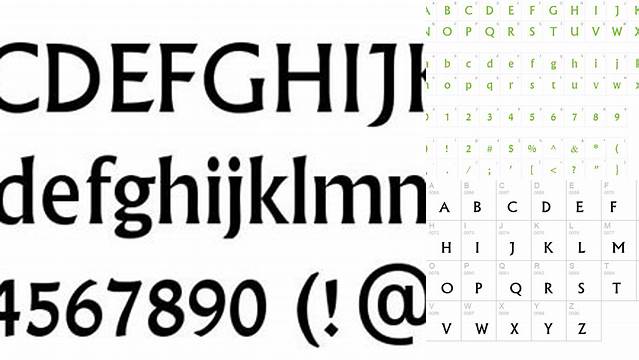
Understanding Font Narkisim and Its Unique Characteristics
So, what exactly is Narkisim, and what makes it so special? Narkisim is more than just a collection of letters; it's a statement, a vibe, a piece of art! It's a font that effortlessly blends modern aesthetics with a touch of classic elegance. This font is designed to be versatile, making it suitable for a wide range of projects, from websites and social media graphics to posters and even printed materials. Its distinctive features set it apart from the crowd. The Narkisim font often boasts a clean, legible design with a unique character that draws the eye. You'll find that its carefully crafted curves and sharp lines work harmoniously, offering a visual balance that's both appealing and professional. This allows designers to communicate effectively while also maintaining a stylish aesthetic.
One of the key characteristics of Narkisim is its readability. In the digital landscape, where user experience is key, choosing a font that's easy to read can make or break your message. Narkisim excels in this area, ensuring that your text is clear and accessible across various devices and screen sizes. Whether you're creating a website for a tech startup or a brochure for a local business, this font will make sure your content is accessible and engaging. The font's adaptability makes it a great pick for different contexts. Imagine a sleek website with bold headlines and a sophisticated blog post that uses the font in a more subtle way. Narkisim can handle it all. Because of its versatility, it's also a fantastic choice for branding. Think about creating a logo that instantly captures your audience's attention or developing a style guide that keeps your brand's image consistent. This font becomes a tool that helps to tell a story, and it sets the mood of the project. Understanding the character of the font gives you an upper hand when it comes to making the most out of it. When we use this font, we're not just choosing letters; we're choosing a visual identity that speaks to the audience.
Creative Ways to Use the Narkisim Font in Your Designs
Now that you've got the Narkisim font installed, it's time to get creative and explore how to use it in your designs. The versatility of this font makes it a great fit for a wide range of projects, whether you're working on a website, a social media graphic, or a print design. Here are a few creative ways to incorporate Narkisim into your work:
Firstly, consider using Narkisim for headings and titles. The font's bold and modern design is perfect for making your headlines stand out. It instantly grabs the viewer's attention and conveys a sense of sophistication and style. Try using it for the main headings of your website, blog posts, or even event posters. By making your titles visually appealing, you'll draw the reader's eye and encourage them to explore your content. Another great way to use Narkisim is in creating stunning website banners. If you're looking for a font that adds a touch of flair to your website's visuals, Narkisim is a great choice. Experiment with different color combinations and backgrounds to create visually interesting banners that engage your audience. Make sure to pair the font with high-quality images and graphics to make your banners pop. Narkisim is an amazing choice for social media graphics. Whether you're creating Instagram posts, Facebook ads, or Twitter headers, the font's eye-catching design will help your content stand out from the crowd. Use it for quotes, calls to action, or even promotional text. By using Narkisim on social media, you can build a strong brand identity, boost engagement, and grow your audience.
When it comes to branding, Narkisim can be a game-changer. It's an incredible choice for logo design. Because of its clean and modern lines, the font can help you create a logo that's both memorable and visually appealing. Consider using it for your brand name or tagline. Additionally, Narkisim can be used in other branded materials, such as business cards, letterheads, and brochures. This ensures a consistent brand image across all your materials. This is a good tool to establish a cohesive brand presence. Lastly, don't be afraid to experiment with different font weights and styles. Narkisim often comes in various weights, such as regular, bold, and light. These variations can be used to create a sense of hierarchy and visual interest in your designs. Using different weights allows you to emphasize certain text elements, such as headings or important information. You can also combine Narkisim with other fonts to create a more balanced and dynamic layout. By mixing and matching fonts, you can create a unique visual style that reflects your brand's personality and message.
Conclusion: Unleash Your Creativity with Font Narkisim
Alright, guys, we've reached the end of our journey into the world of Narkisim! We've learned about this amazing font, how to free download and install it, and all the creative ways you can use it. From websites to social media graphics, the Narkisim font is a powerful tool that can transform your projects. Remember, the key to successful typography is creativity and experimentation. Don't be afraid to explore different font weights, styles, and combinations to find the perfect fit for your project. Make sure you're aware of licensing and legal considerations. Follow these tips, and you will be able to make the most out of it. So, go forth, download Narkisim, and let your creativity soar! Happy designing!